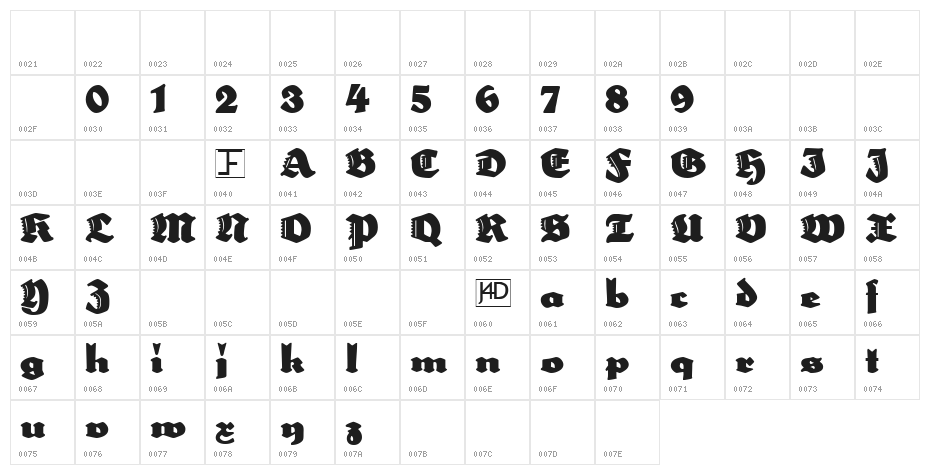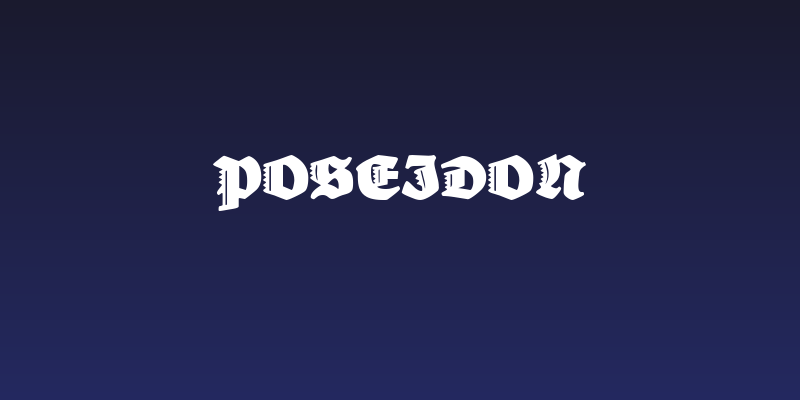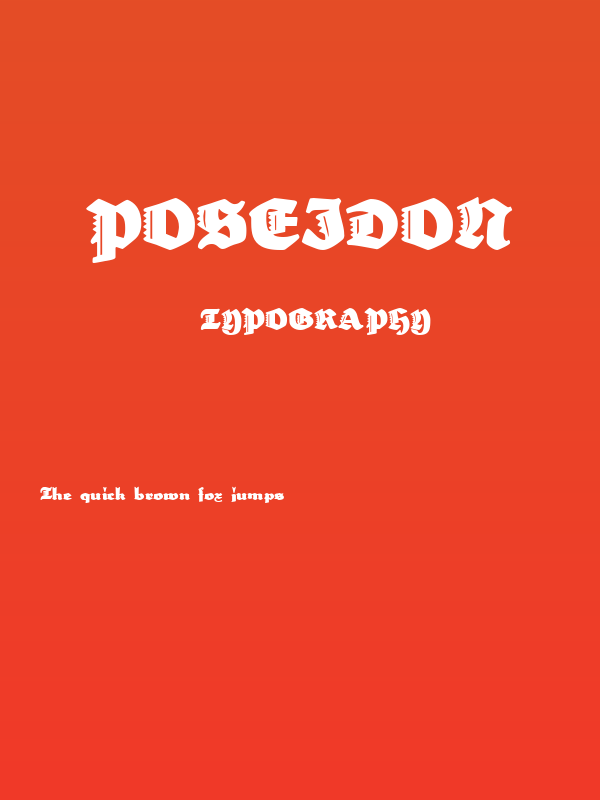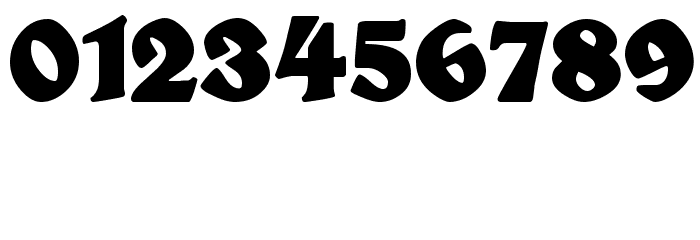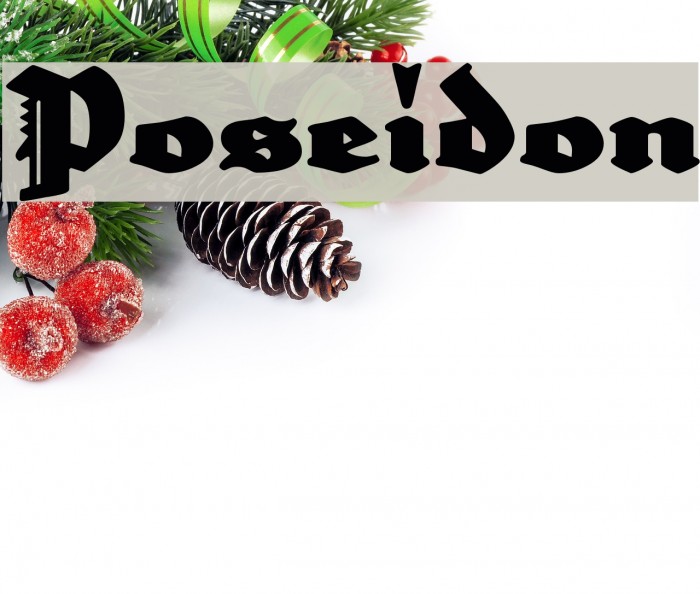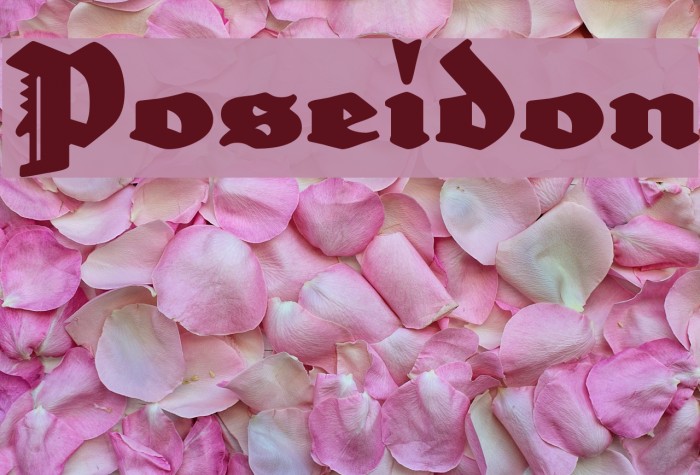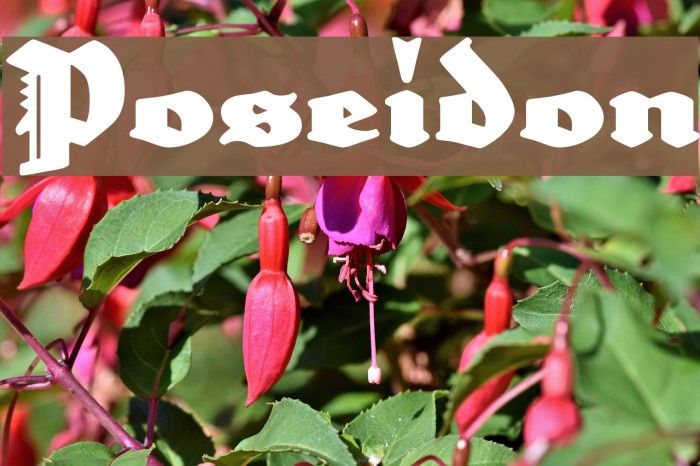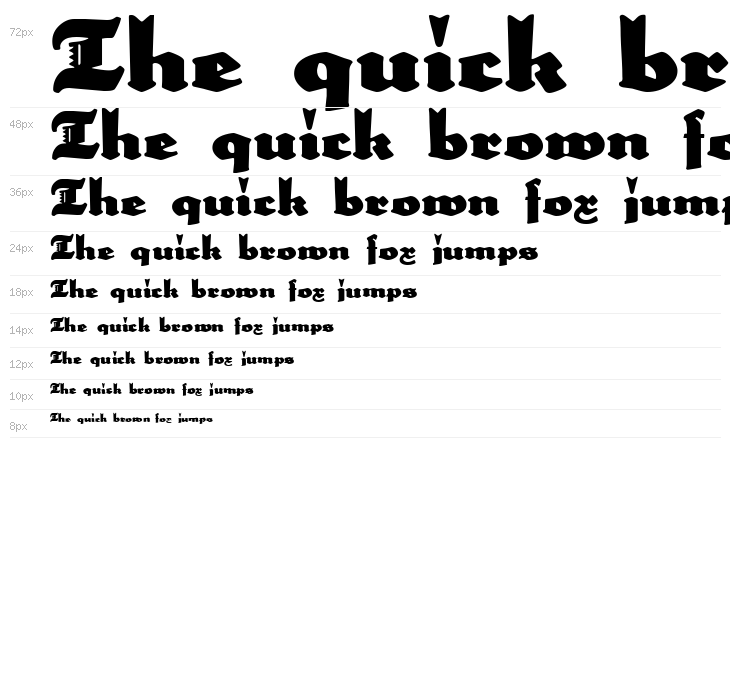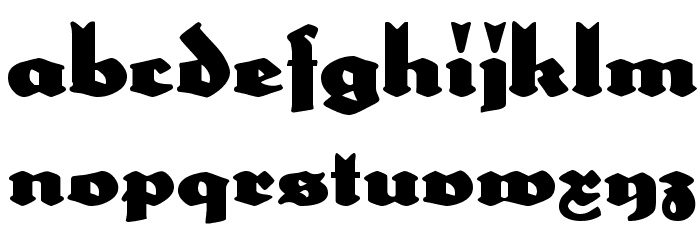
Poseidon Font
Poseidon Description
This font exhibits a bold and dramatic blackletter style, characterized by its intricate and angular letterforms. The uppercase letters are particularly ornate, with sharp edges and a gothic flair that evokes a sense of historical elegance. The lowercase letters maintain a consistent style, offering a cohesive look across the alphabet. The numerals are equally bold, ensuring readability while maintaining the overall aesthetic. This font's unique style is reminiscent of medieval manuscripts and traditional calligraphy, making it a striking choice for projects that require a touch of vintage sophistication.
POSEIDON UPPERCASE
POSEIDON LOWERCASE
POSEIDON OTHER CHARS
| Proposed Projects | Ideal for historical-themed designs, book covers, posters, and branding that requires a vintage or gothic touch. |